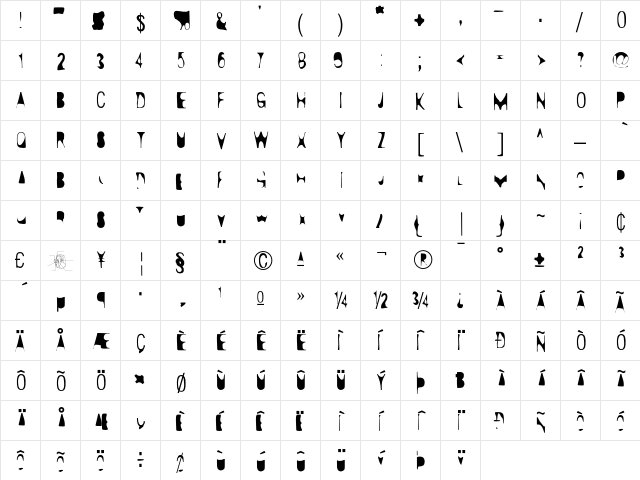
D44Caps Light
Design Context for D44Caps Typeface
D44Caps is a composed and adaptable typeface that performs quietly and consistently across a wide range of design contexts. Its slender proportions lend an understated elegance to any composition.